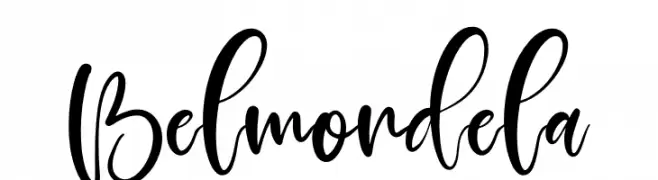
A lively and playful script font with a handwritten feel.
A bold, futuristic font with sharp angles and an oblique slant.
Detailed and diverse English football club badges with heraldic and emblematic designs.
A bold, rounded, and playful font with a hand-drawn feel.
A bold, geometric font with sharp angles and a blocky, futuristic style.
A bold, geometric font with a futuristic and angular design.
A bold, italicized font with a modern, tech-inspired design.
A bold, geometric font with a futuristic and technical design.
A bold, geometric font with a modern, futuristic style.
A bold, geometric font with a modern, structured design.
A bold, geometric font with diagonal line patterns for a dynamic look.
A bold, italic font with a futuristic, striped design.
A dynamic, italicized font with angular, futuristic letterforms.
A modern, geometric font with a futuristic and technical design.
A geometric, minimalist font with thin lines and a modern, technical style.
A thin, italicized font with a modern, technical style.
A bold, geometric font with a double-line stroke for a futuristic look.
A playful, whimsical font with bold, curvy characters and a hand-drawn appearance.
A bold, italic font with dynamic, playful curves and sharp edges.
A bold, italic font with dynamic strokes and a whimsical, energetic style.
A bold, distressed font with a rugged, grunge-like texture.
Whimsical decorative font with cartoon devil illustrations instead of letters.
A bold, geometric font with a modern and futuristic style.
An elegant script font with flowing, cursive letters and a refined, sophisticated style.
A decorative script font with elegant swirls and flowing cursive letters.
A playful, casual handwritten font with smooth, flowing lines.
A tall, slender, hand-drawn font with wide spacing and elegant strokes.
A dynamic and flowing script font with elegant curves and pointed edges.
A modern, dotted font with a digital and geometric aesthetic.
A bold and expressive script font with dynamic flow and smooth curves.
Illustrative, ethnographic font with cultural motifs and figures.
A dynamic and elegant script font with flowing, interconnected letters.